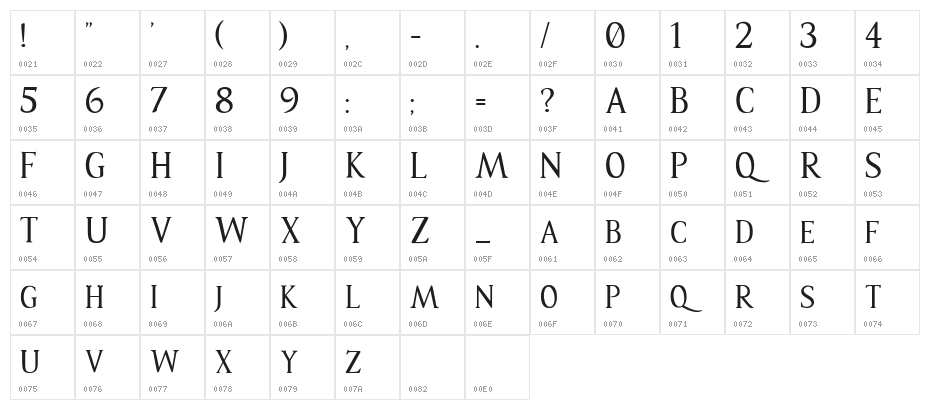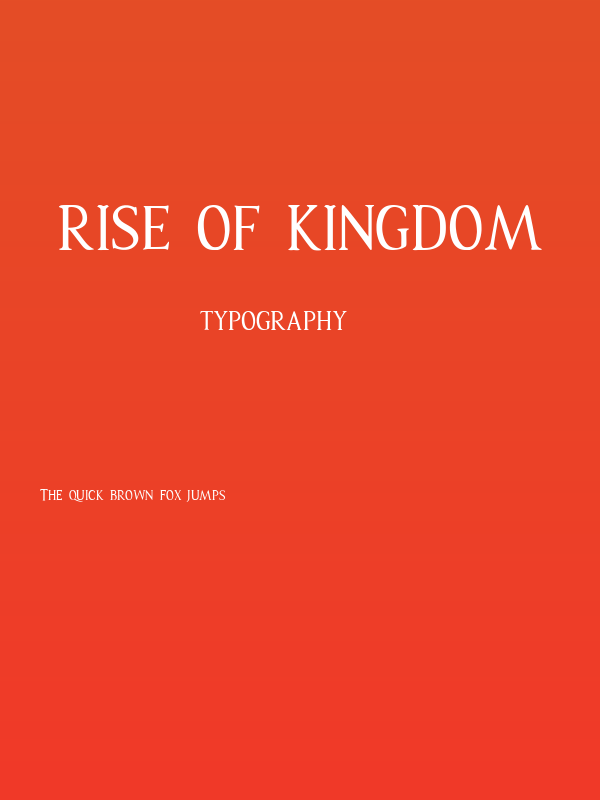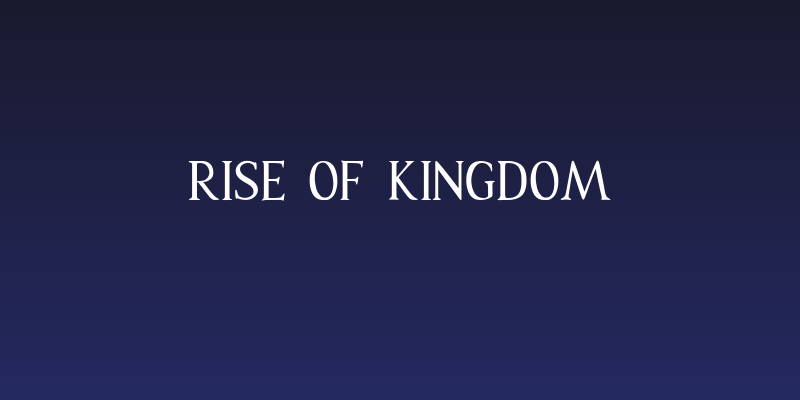
Rise of Kingdom Font
Rise of Kingdom Description
This font features a classic serif style with elegant, sweeping curves and sharp serifs that give it a regal and sophisticated appearance. The uppercase letters are bold and commanding, with a slight flair on certain characters like 'Q' and 'R' that adds a touch of uniqueness. The lowercase letters maintain a consistent style, with a traditional serif structure that enhances readability. The numerals are distinct and well-proportioned, ensuring clarity in numerical data. Special characters are designed with the same attention to detail, providing a cohesive look across all glyphs.
| Proposed Projects | Ideal for use in formal documents, book titles, branding for luxury products, and historical themed designs. |